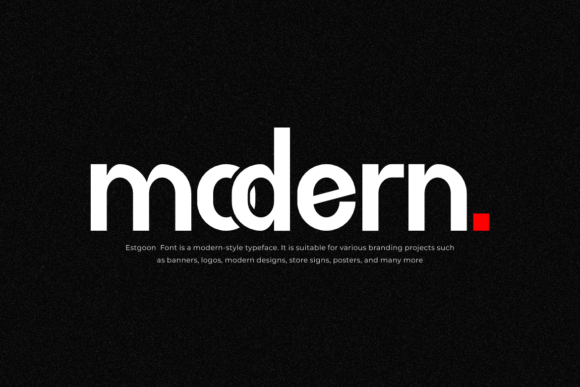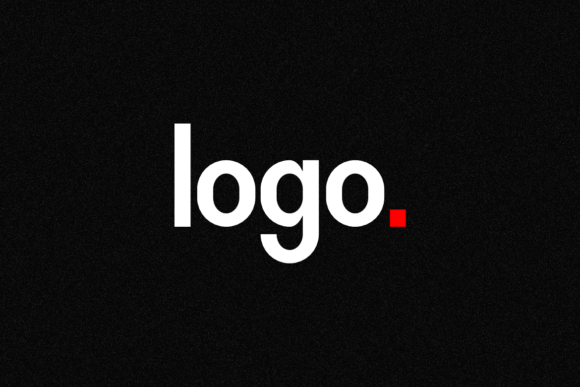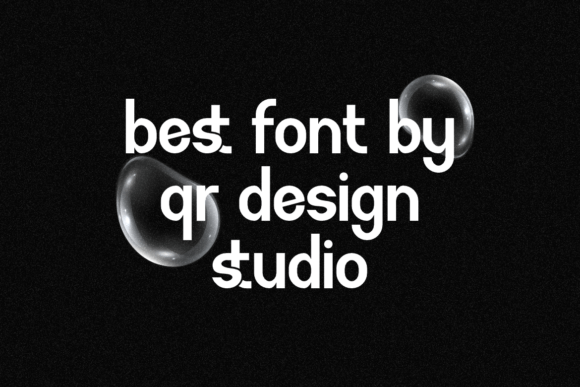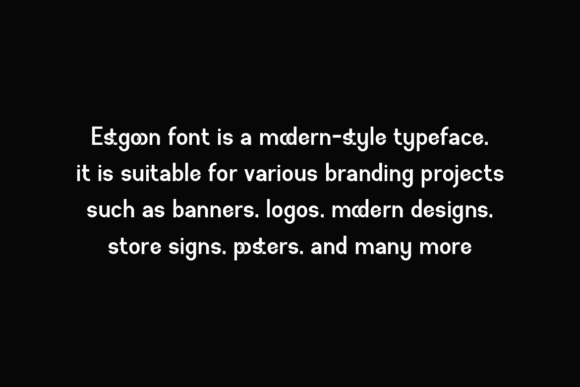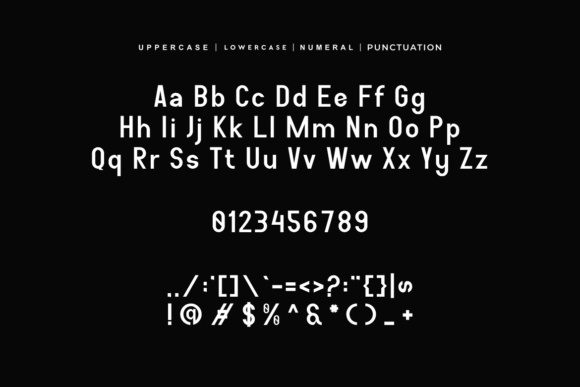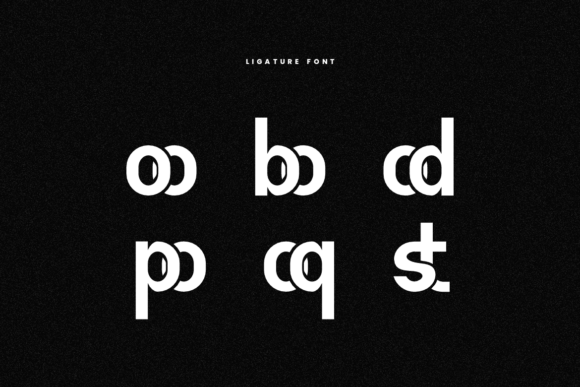
Introducing Estgoon Font: Elevate Your Brand with Modern Authority
In the realm of typography, a font can make or break a brand’s identity. For designers and crafters seeking a modern edge, Estgoon Font emerges as a sleek and sophisticated solution. Specifically designed as a logo display font, Estgoon anchors your brand with contemporary authority, making it an ideal choice for those aiming to leave a lasting impression.
Characterized by Clean Lines and Unique Constructions
Estgoon Font is distinguished by its clean lines, a hallmark of modern design. This typeface boasts a geometric structure that exudes balance and precision. What sets Estgoon apart are its unique lowercase “t” and “g” constructions, adding a touch of personality to its otherwise minimalist aesthetic. This blend of simplicity and character ensures that Estgoon delivers a high-impact visual experience that feels both futuristic and approachable.
Ideal for Corporate Identities and Tech-Focused Startups
For designers tasked with crafting a corporate identity or branding for tech-focused startups, Estgoon Font presents a compelling option. Its balanced design ensures that the brand’s message is conveyed with clarity and style, essential for establishing a strong market presence. The Estgoon typeface manages to strike a perfect balance between professionalism and personality, making it a standout choice for businesses looking to carve out a contemporary niche.
Pairing Estgoon for Maximum Impact
To truly harness the potential of the Estgoon font, pairing it with high-contrast imagery or minimalist layouts is recommended. The sharp, precise terminals of Estgoon shine in such combinations, creating a visually compelling narrative. This strategic pairing not only enhances the aesthetic appeal of the brand’s visual identity but also ensures that the message is conveyed with clarity and sophistication.
Application Across Various Mediums
The versatility of Estgoon Font makes it suitable for a wide range of applications. For digital platforms, using Estgoon for website headers can instantly elevate the site’s visual appeal, providing a strong first impression for visitors. In the realm of print, Estgoon shines on professional business cards and modern signage, where clarity and style are paramount. Its adaptability ensures that the brand’s visual identity remains consistent across various mediums, from digital to print.
Building a Memorable Visual Identity
Whether you’re in the process of building a new digital platform or refreshing a high-end lifestyle brand, Estgoon Font provides the architectural foundation needed for a truly memorable visual identity. Its sleek lines, unique character constructions, and modern aesthetic make it an invaluable tool for designers aiming to craft a brand image that resonates with contemporary audiences.
Why Choose Estgoon Font?
- Modern Aesthetic: Offers a sleek and sophisticated look, perfect for brands aiming for a contemporary edge.
- Unique Character Constructions: The distinctive “t” and “g” constructions add personality to its geometric structure.
- Versatility: Suitable for a wide range of applications, from digital platforms to print materials.
- High-Impact Visuals: Delivers a futuristic yet approachable aesthetic, ideal for corporate identities and tech startups.
Estgoon Font stands as a testament to modern typography’s power in shaping brand identities. Its sleek design, unique character constructions, and versatility make it an excellent choice for designers and crafters looking to imbue their projects with a contemporary authority. By choosing Estgoon, you’re not just selecting a font; you’re laying the groundwork for a visual identity that is both memorable and impactful.